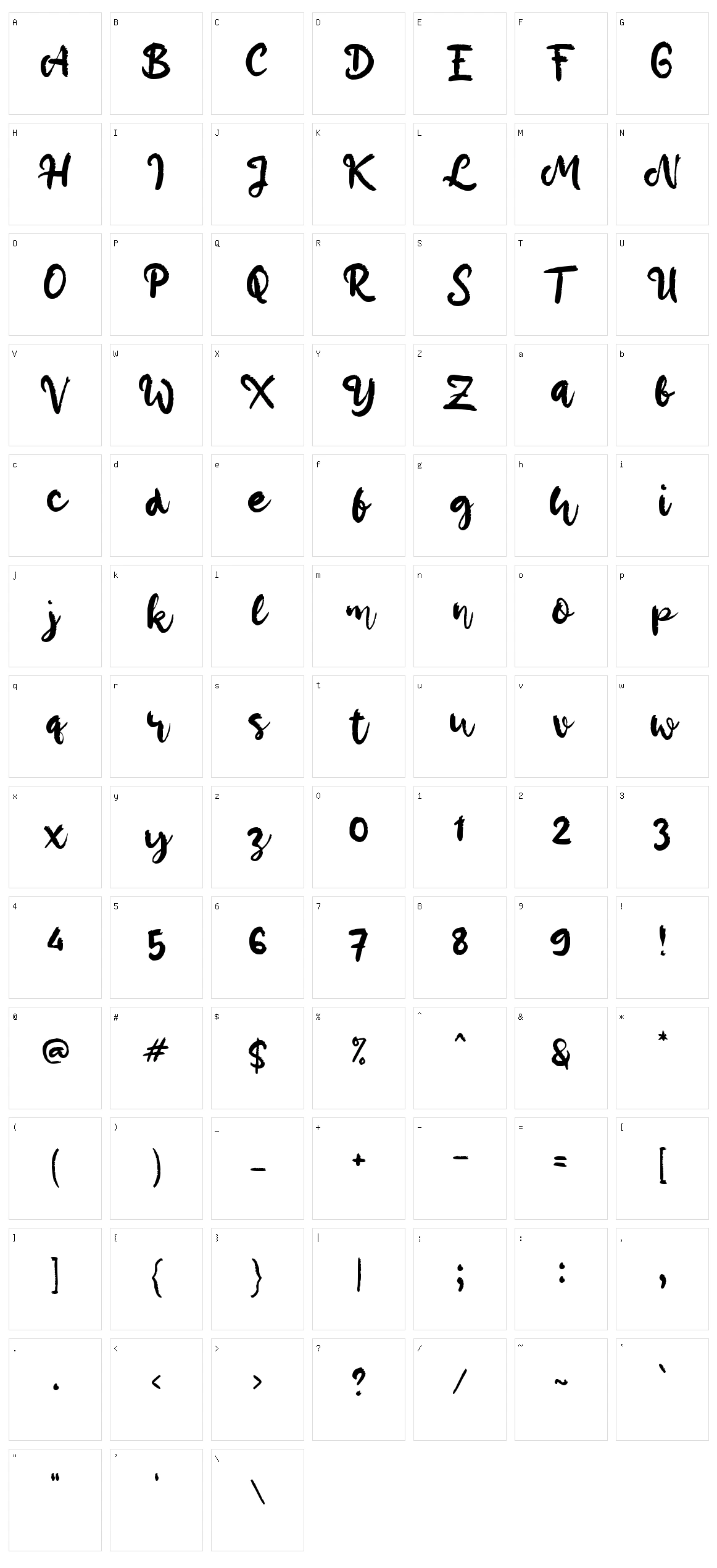
The free font b Bayangan Pendekar is carefully designed by wep, showcasing a thoughtful balance of creativity and usability and falls under the Script font style. When you download the ZIP file, it contains only 28.87 KB of font files, making it lightweight and quick to download. Please review the license details below to understand permitted usage and distribution rights. If license information is not available, we recommend using this font for personal projects only or contacting the author directly for commercial usage permissions.